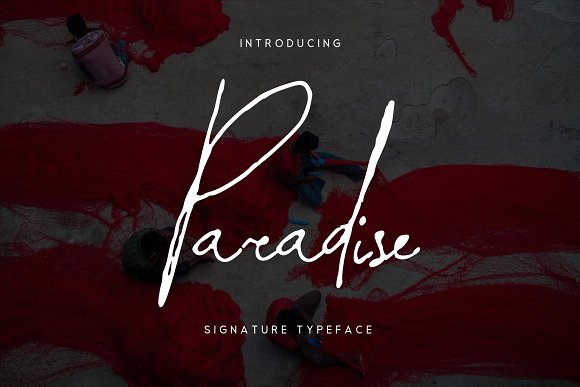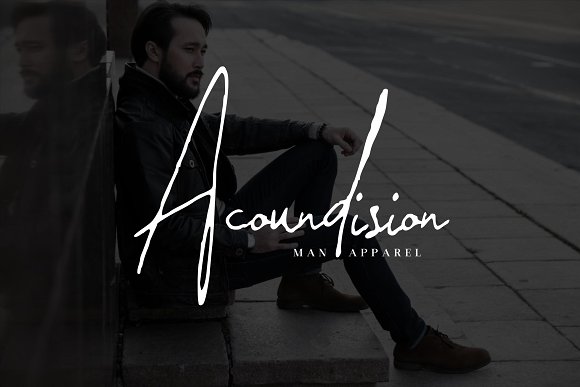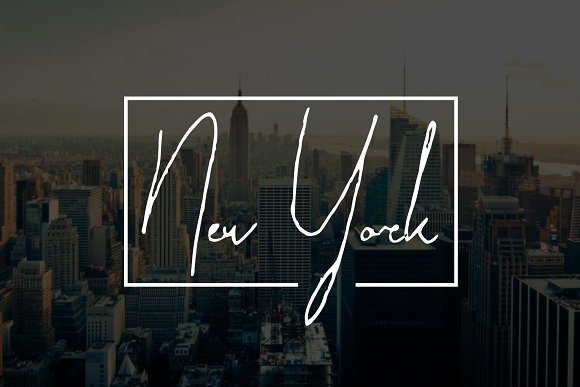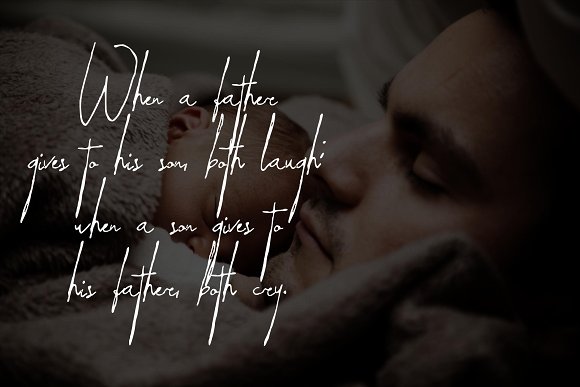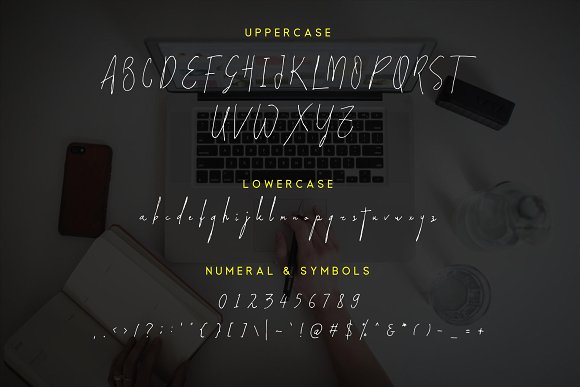
Paradise Font
About Paradise Font
Paradise is an elegant, thin calligraphy font. Paradise has an imperfect hand-sketched look to give your projects an authentic feeling.